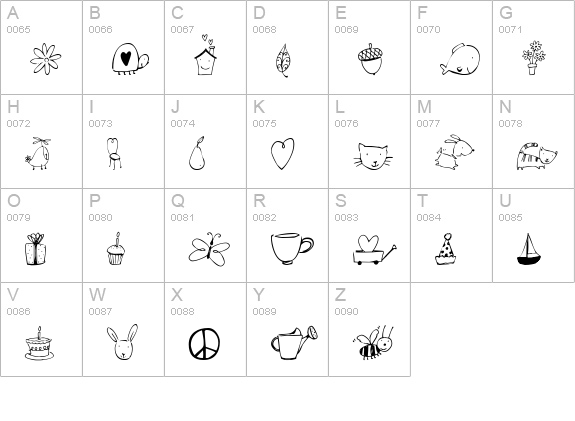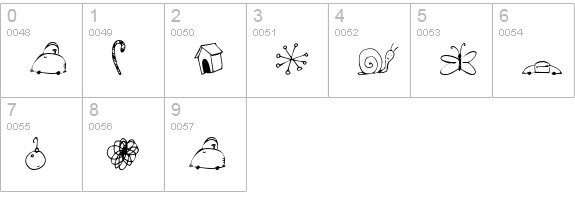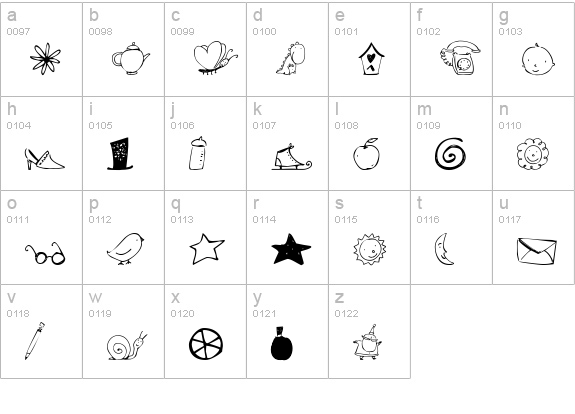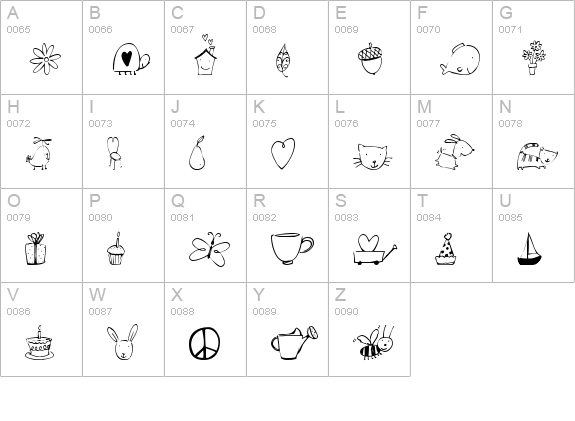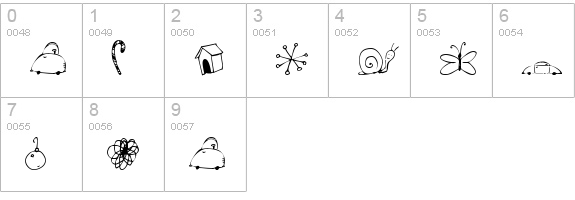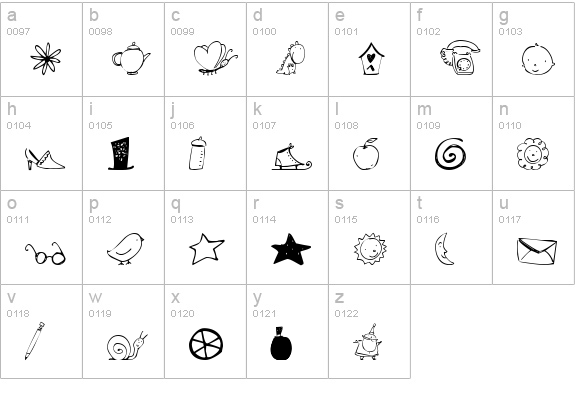
2Peas DW Dingbats Font Details
2Peas DW Dingbats font is a whimsical and charming collection of doodle-like symbols and icons that add a touch of fun to your designs. This font features a wide range of decorative elements such as hearts, stars, arrows, flowers, and more, making it perfect for adding a creative flair to invitations, posters, and other projects. Best of all, 2Peas DW Dingbats font is available for free download at FontsMarket.com. Whether you're looking to enhance your digital creations or simply want to add a playful element to your projects, this font is sure to delight with its unique and quirky designs. Get your hands on this delightful font today and let your creativity soar!